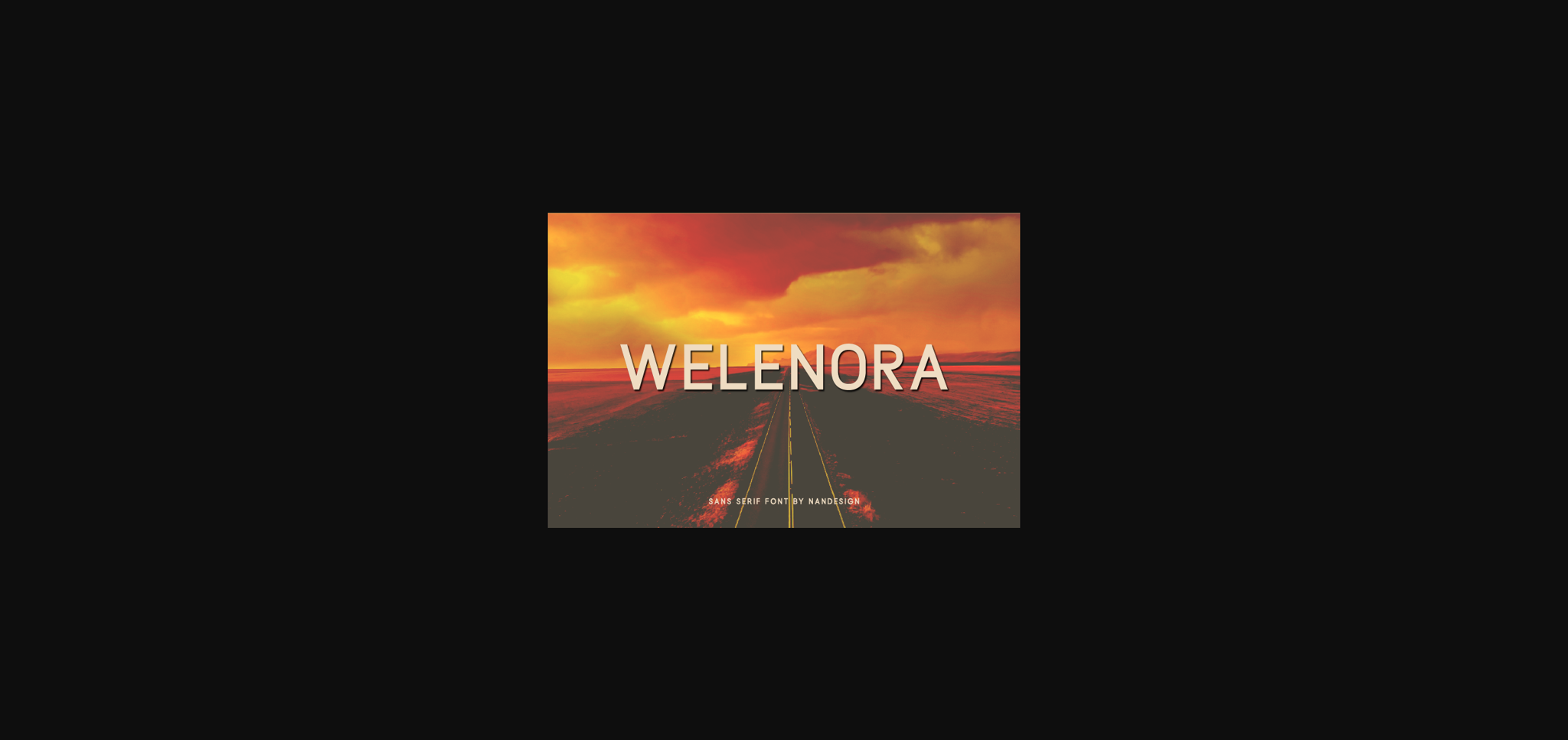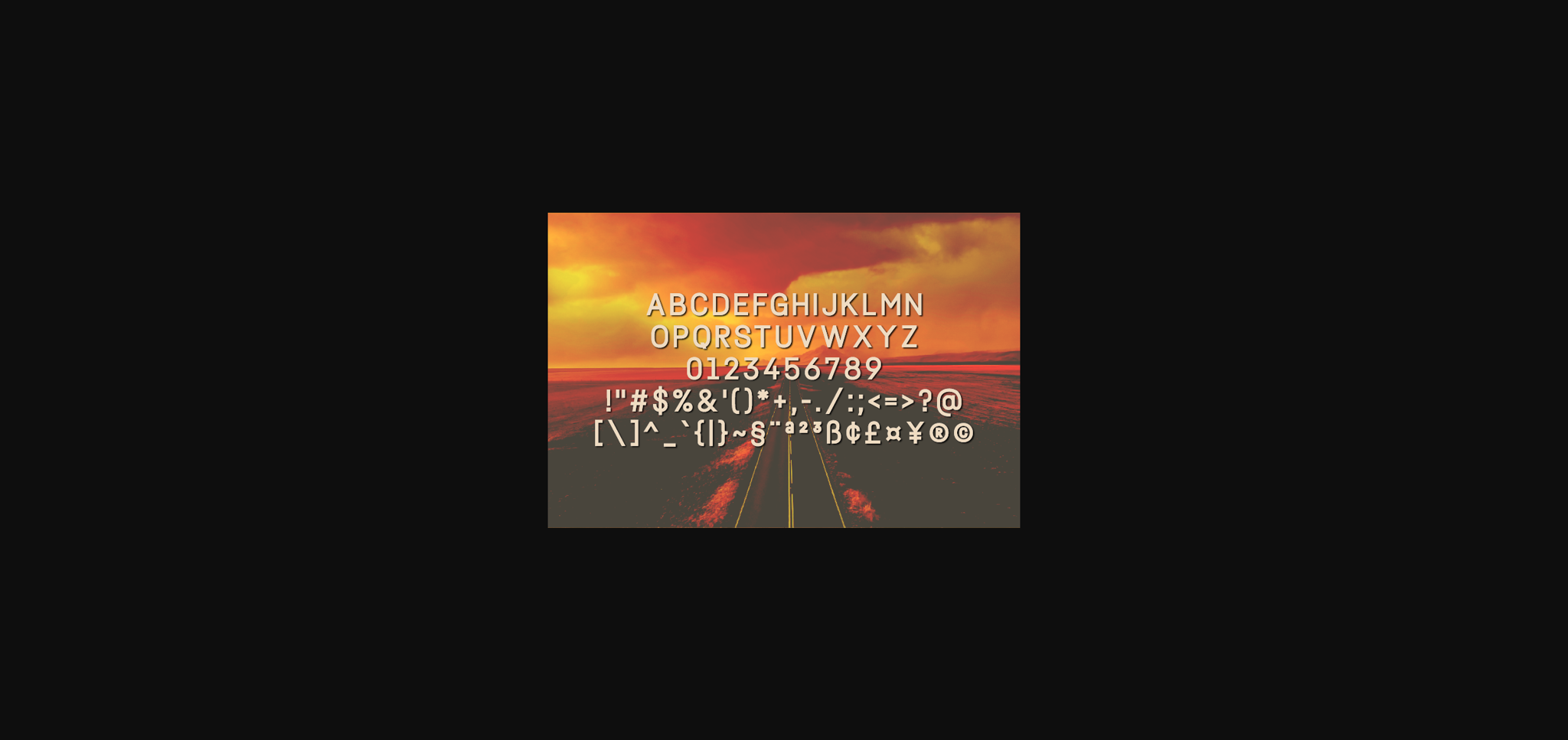
About Welenora Font
Welenora is a minimal and clean sans serif font. It can easily be matched to a large set of projects, so add it to your creative ideas and notice how it makes them stand out!